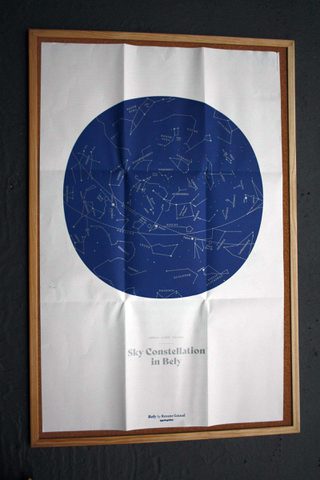
Bely poster & specimen
Talented designer Noel Pretorious with the supervision of Elena Veguillas has designed this beautiful poster featuring Bely, a classy throwback textface with a fearless and venturesome display by French designer Roxane Gataud.
- Designer
- Noel Pretorious
- Design Manager
- Elena Veguillas